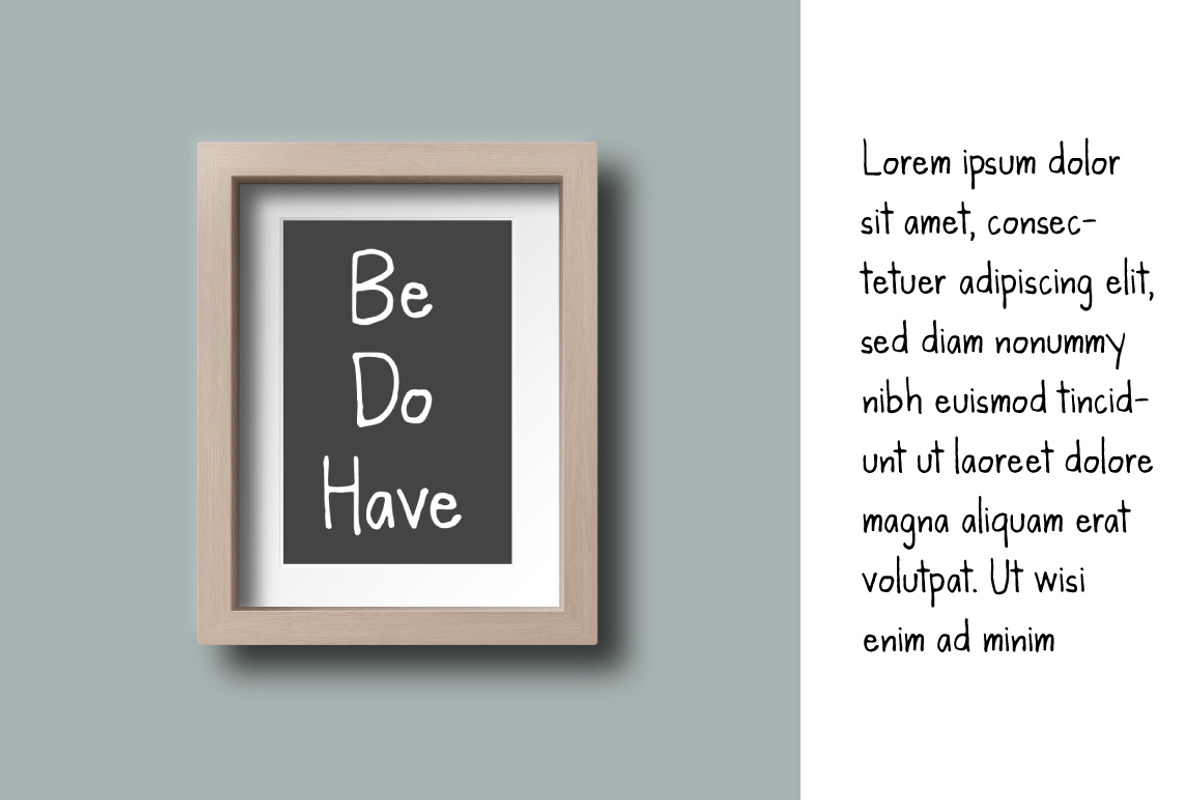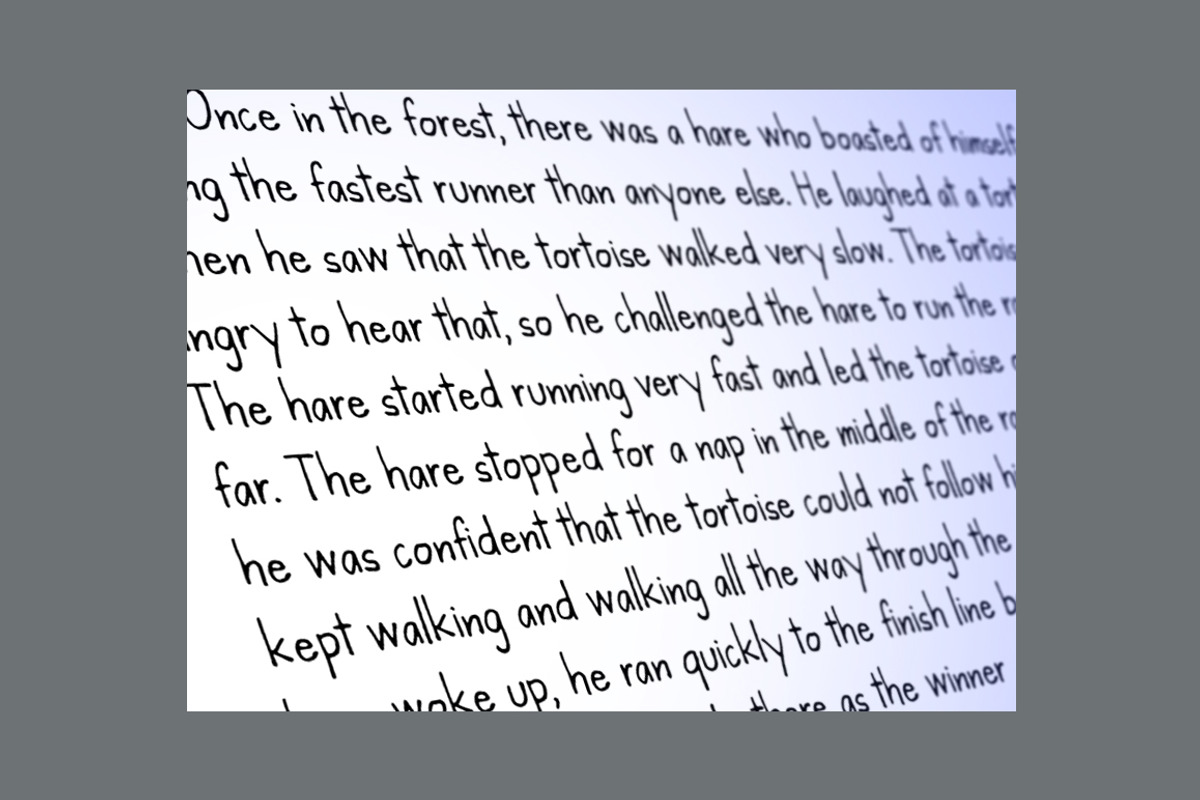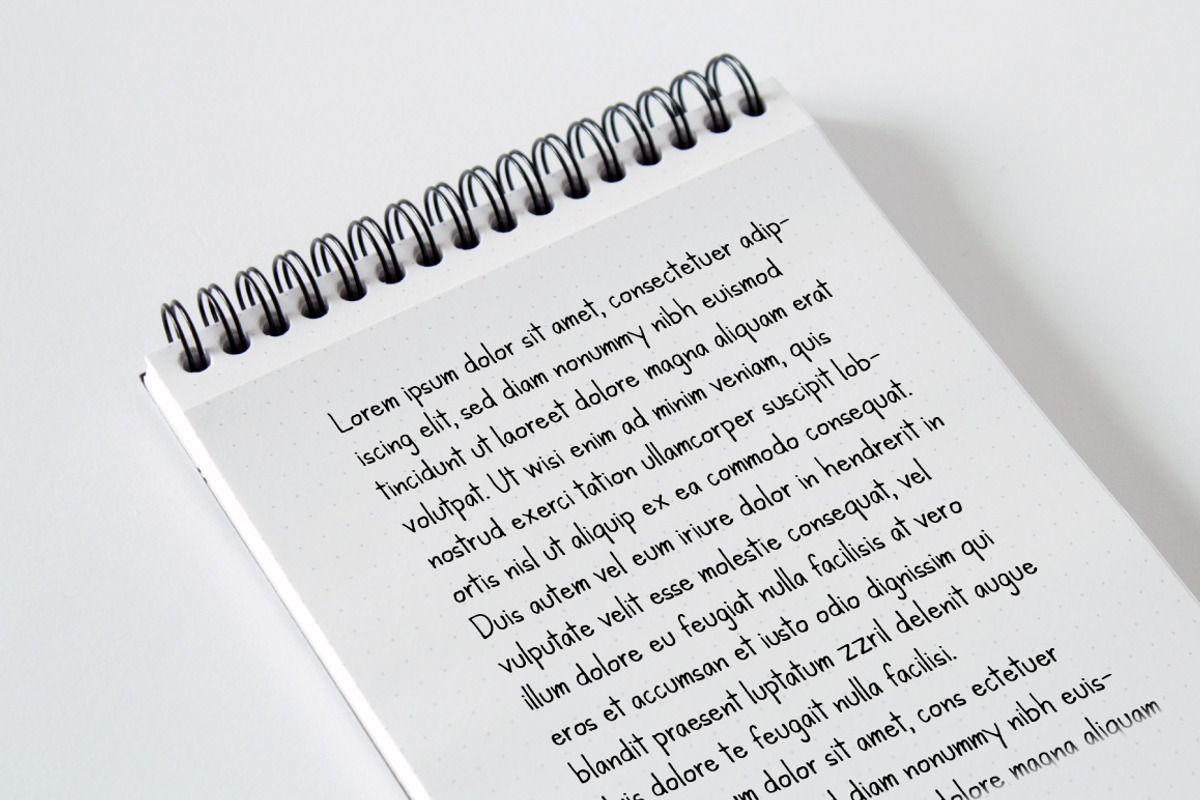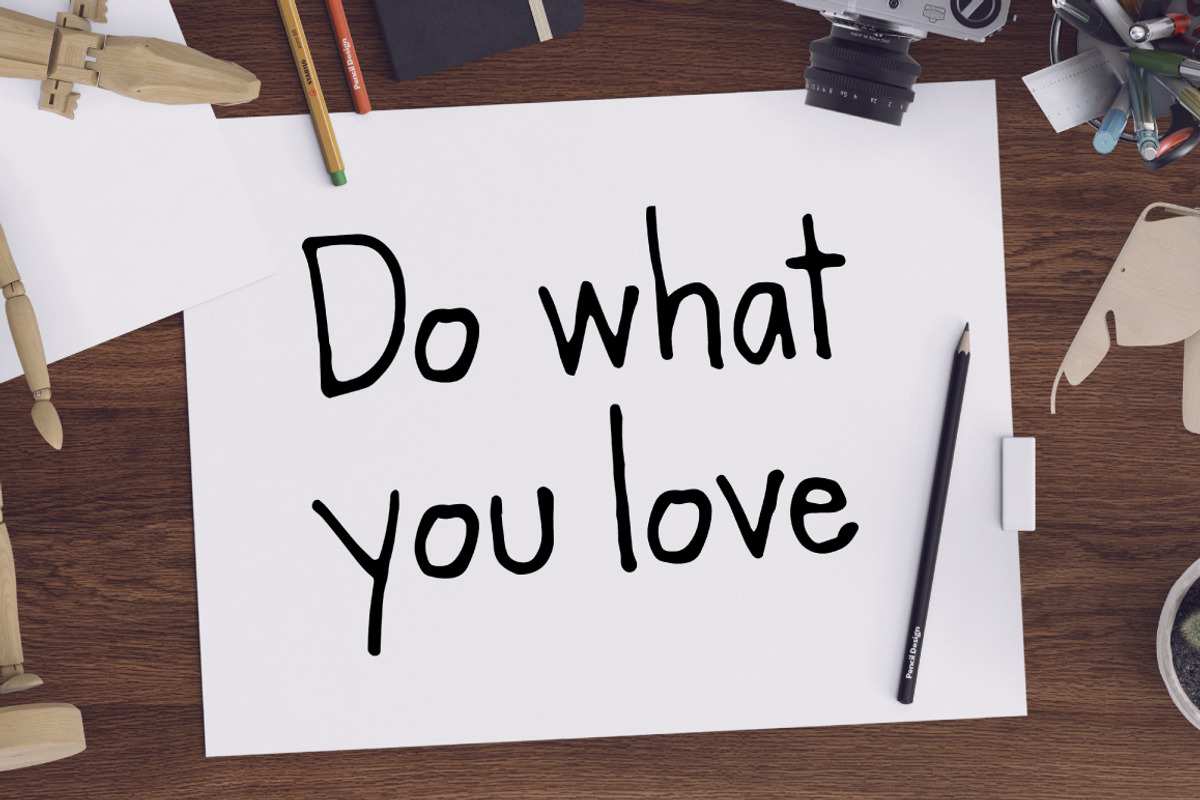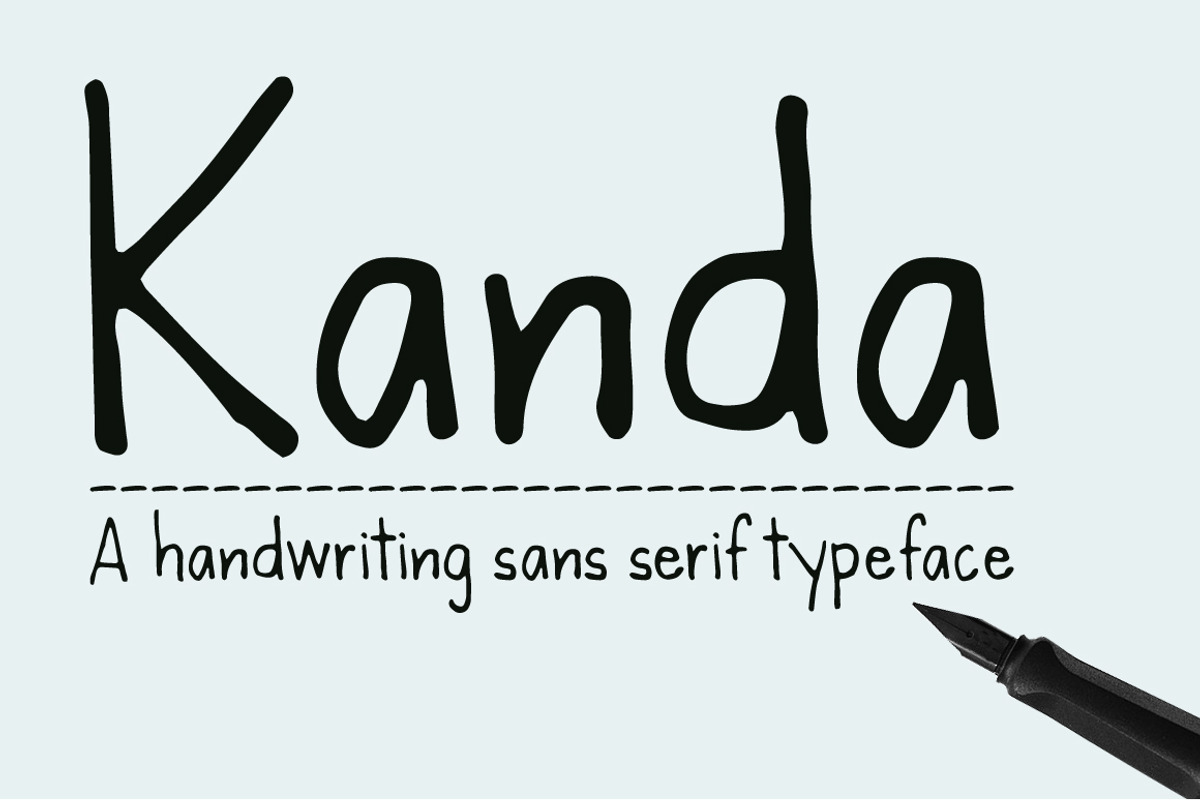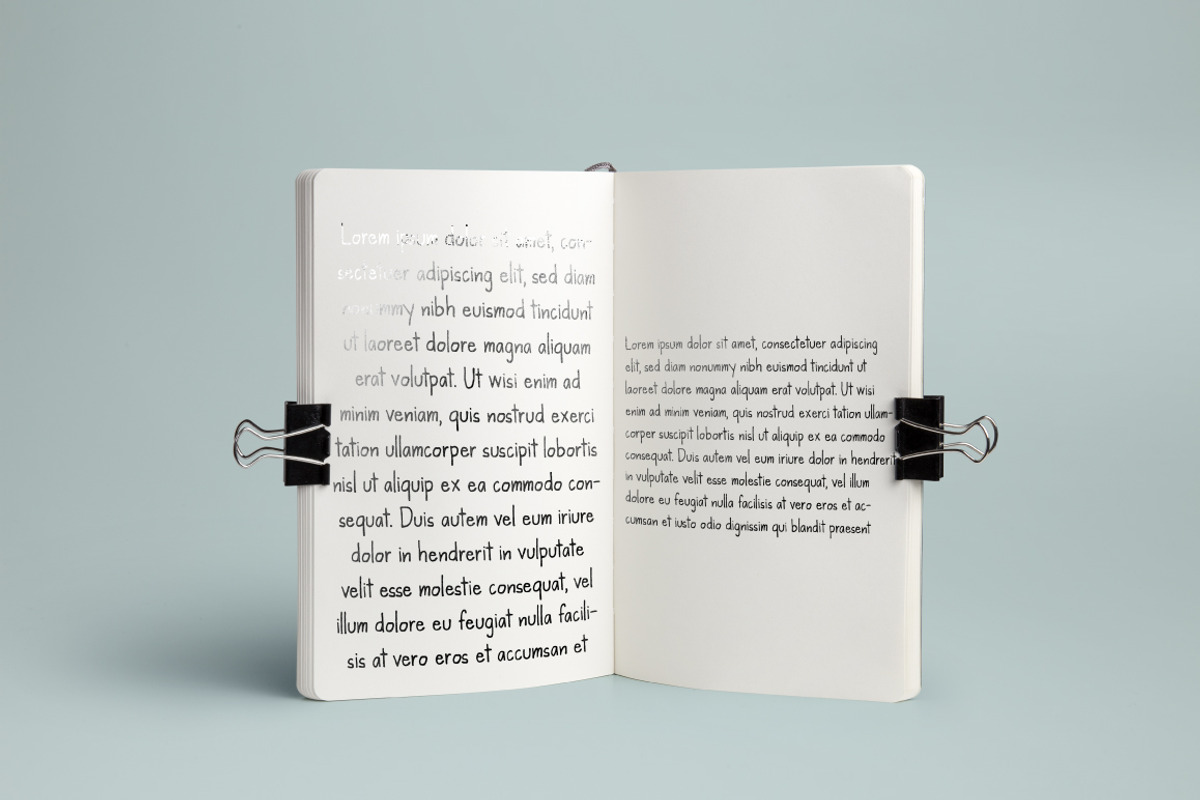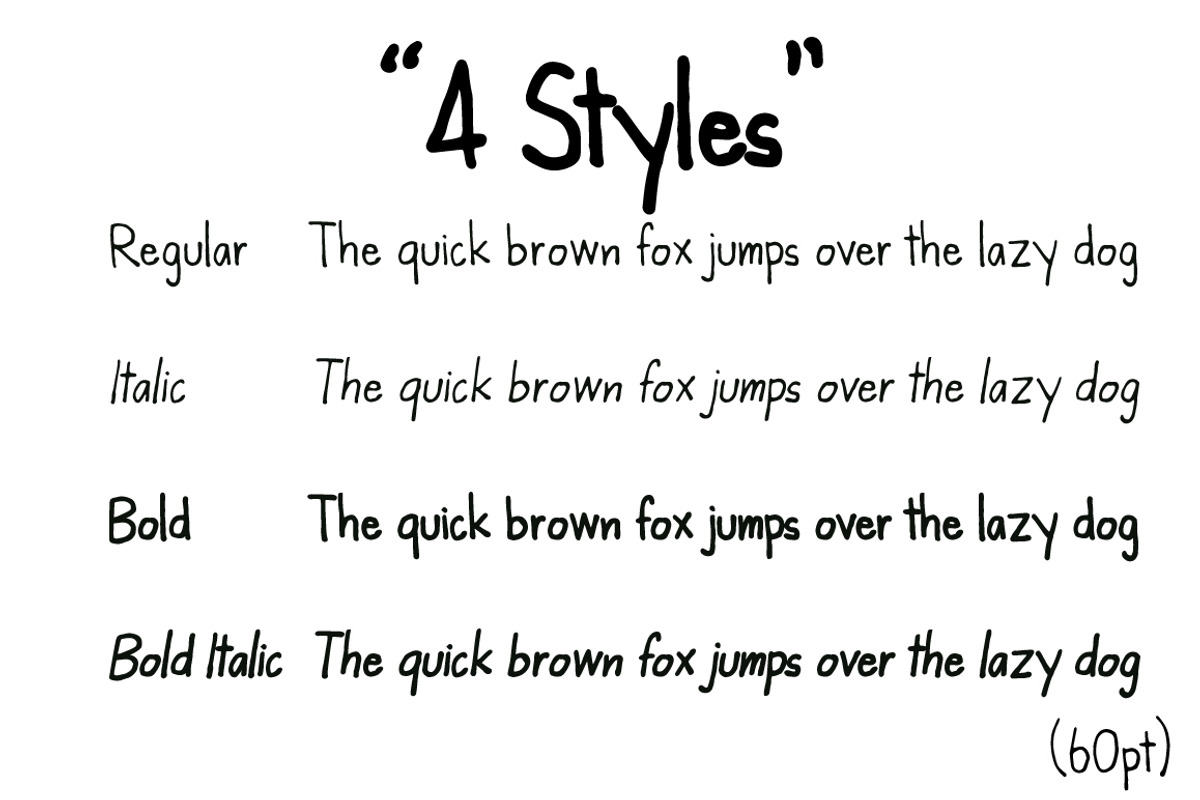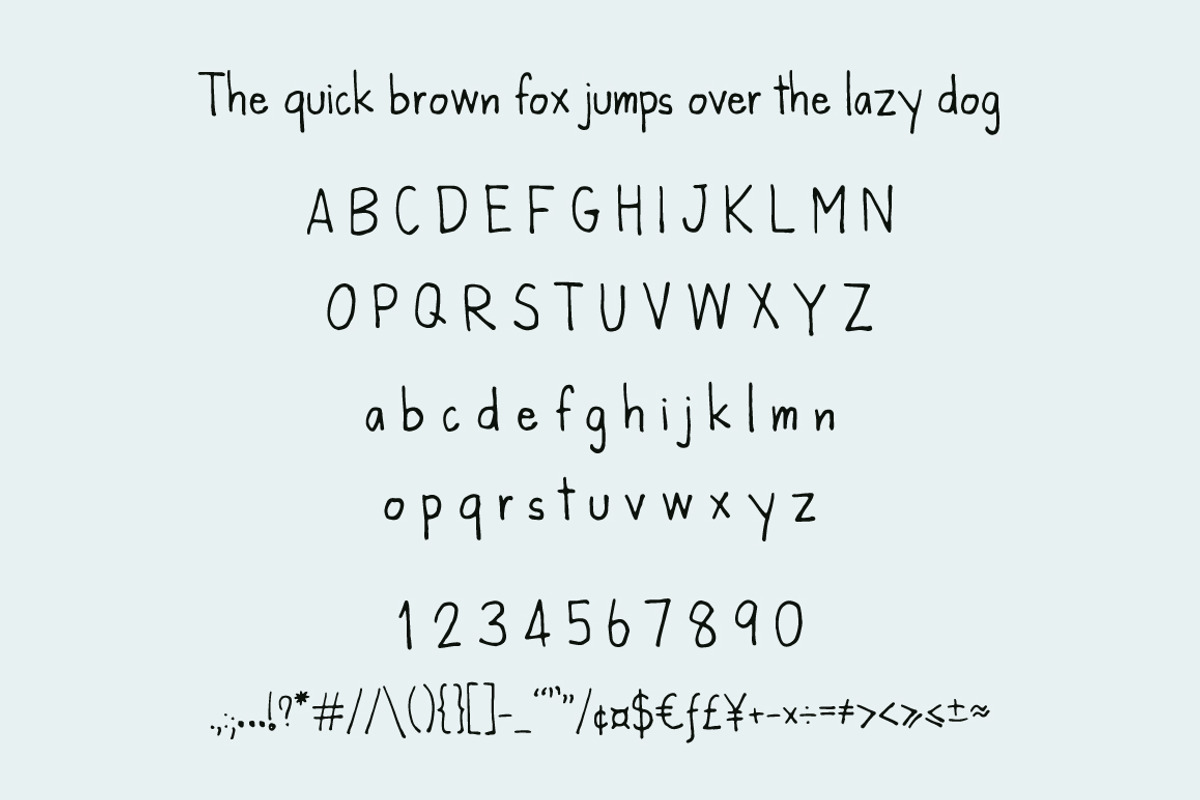
Kanda Handwriting Typeface
Kanda is a sans serif handwriting typeface written using a real fountain pen. This easy-to-read font was designed to be relaxed, friendly, informal and clean.
Kanda come in standard English characters(A-Z, a-z), numbers(0-9) and 42 Symbol&Punctuations. It includes 4 style, Regular, Italic, Bold and Bold Italic